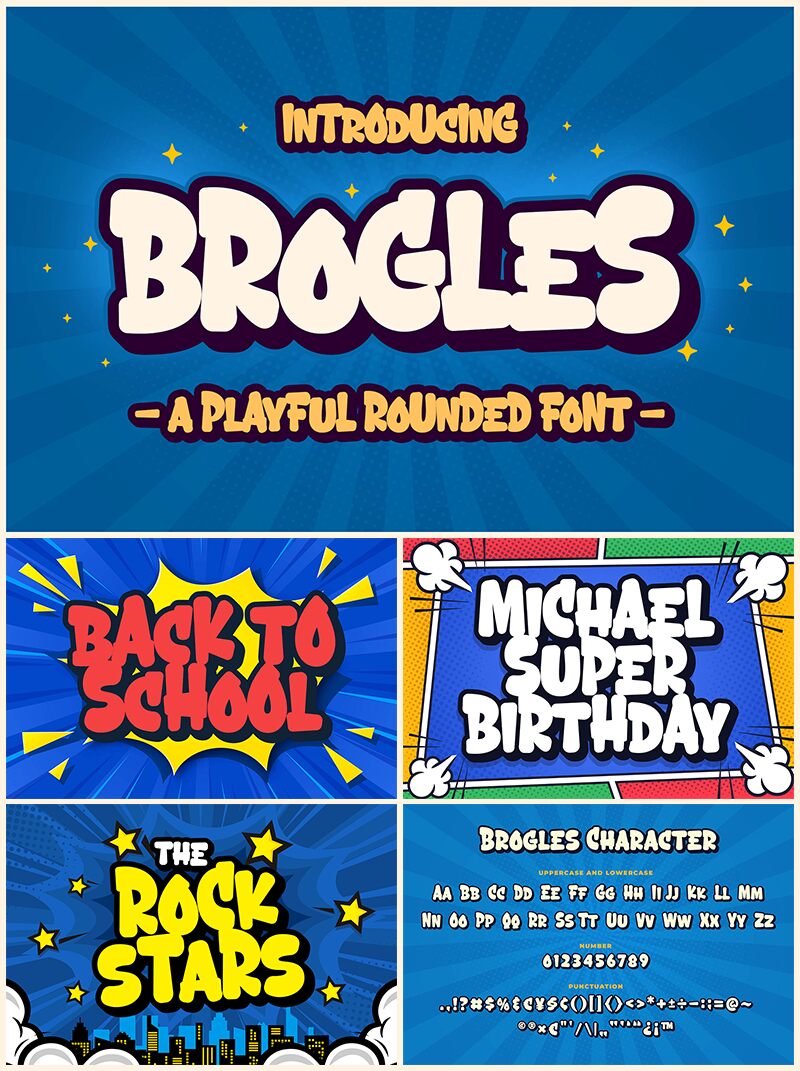
Brogles Extrude
Brogles Extrude captivates with its playful, cartoonish charm and bold presence. The font's dimensions come alive with its thick strokes and wider forms, creating an energetic aesthetic that demands attention. Each letter boasts a whimsical character, enhanced by exaggerated curves and dynamic contours that radiate fun and creativity.
Ideal for vibrant designs like children’s products, event posters, or brand logos aiming for a cheerful vibe, Brogles Extrude stands out in any context where liveliness is key. Its unique style effortlessly complements various applications, from playful invitations to captivating merchandise branding, ensuring your message resonates with enthusiasm and flair.